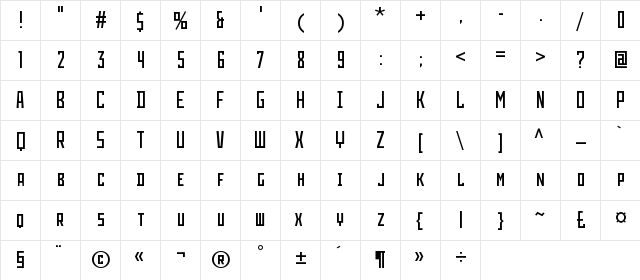
LIFAD font Serbia Regular
Design Context for LIFAD font Serbia Typeface
LIFAD font Serbia takes a measured approach to typography — its balanced proportions and neutral character make it a reliable workhorse for both digital and print work.